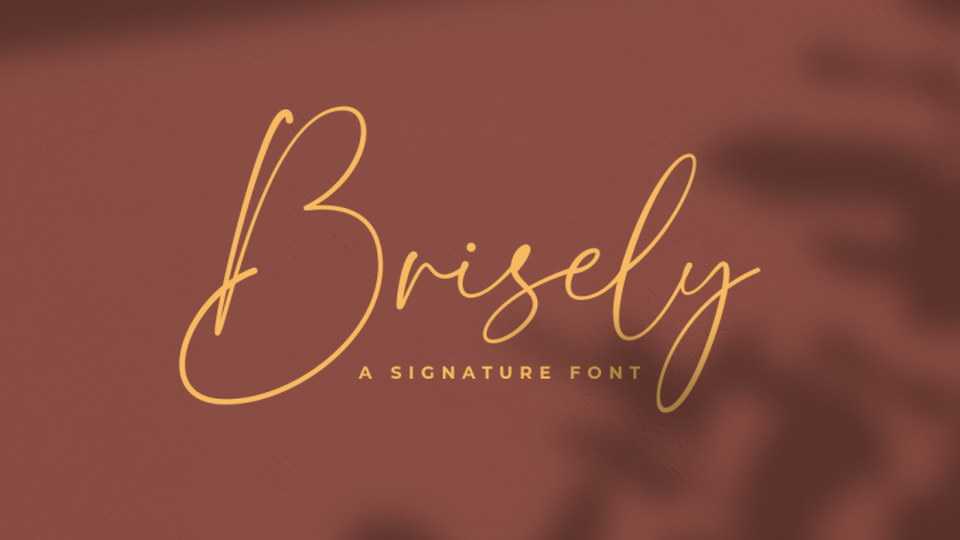
Download Brisely font, an elegant signature script. Brisley is perfect for branding, wedding, invitation, and any purpose design project.
Designer: Suby Studio